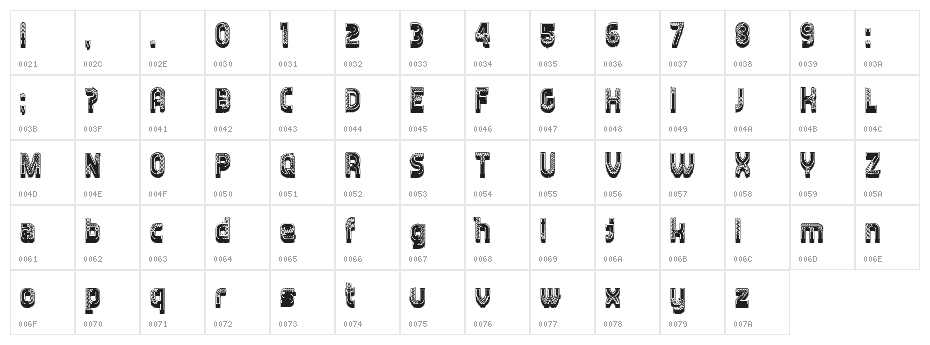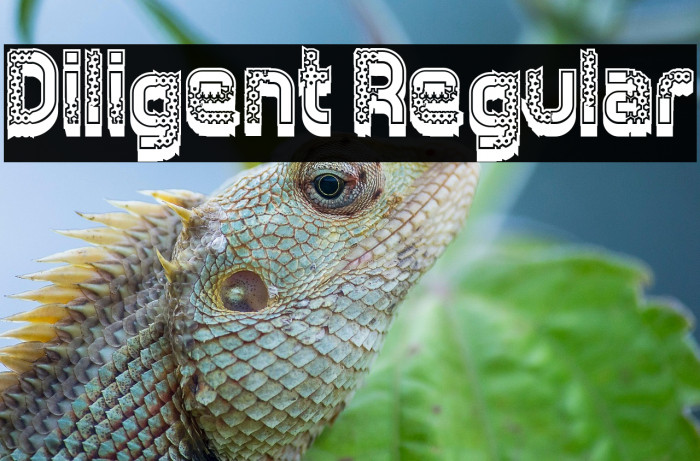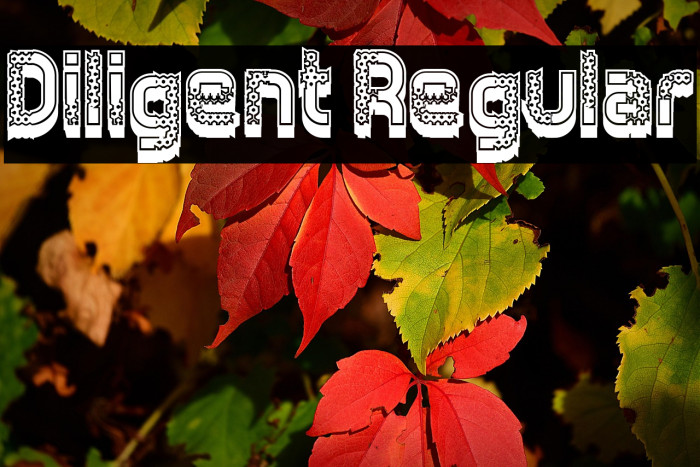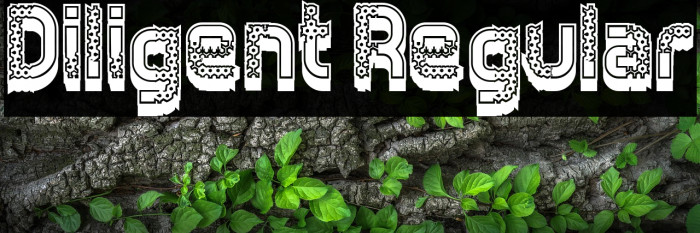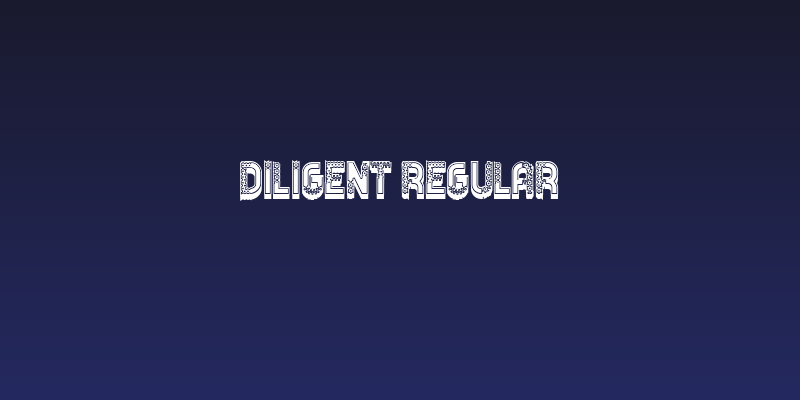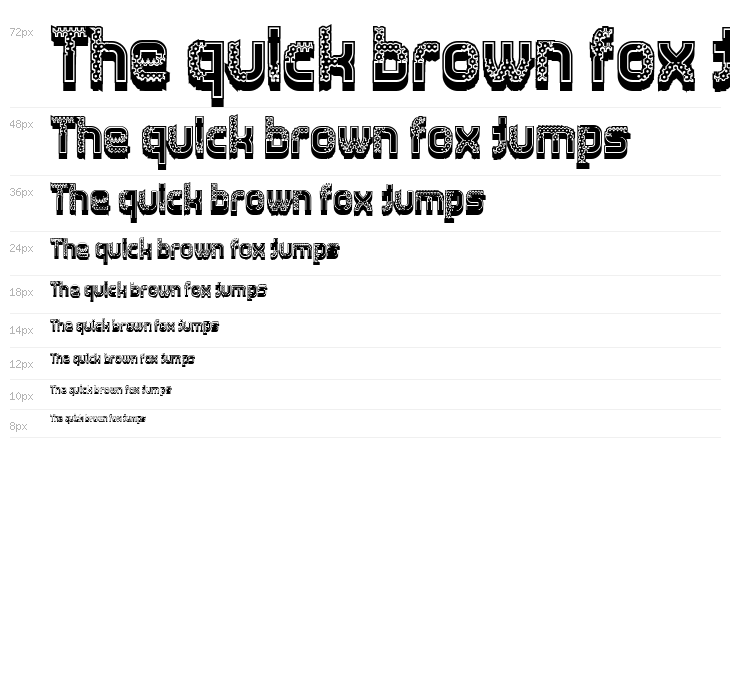
Diligent Regular Font
Diligent Regular Description
This font is a bold and decorative typeface featuring a unique, intricate pattern within each character. The letters are outlined with a thick black border, creating a striking contrast against the detailed interior design. The font has a playful and artistic feel, making it stand out in any design project. The uppercase and lowercase letters maintain consistency in style, while the numbers and special characters follow the same decorative theme. This font is ideal for projects that require a bold statement and a touch of creativity.
| Proposed Projects | Ideal for posters, album covers, event invitations, and branding materials that require a bold and artistic touch. |